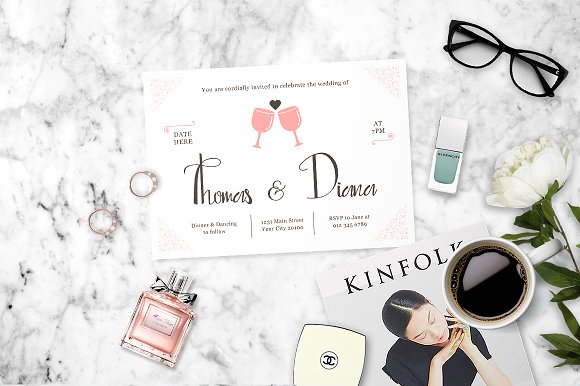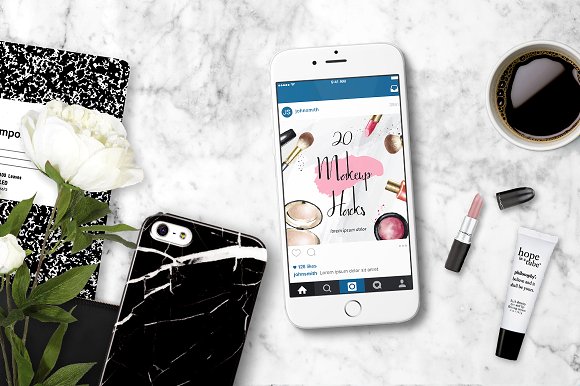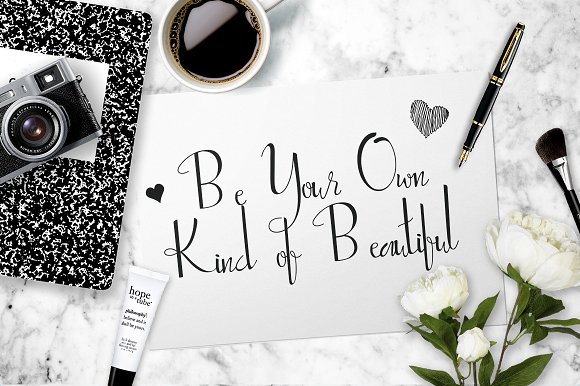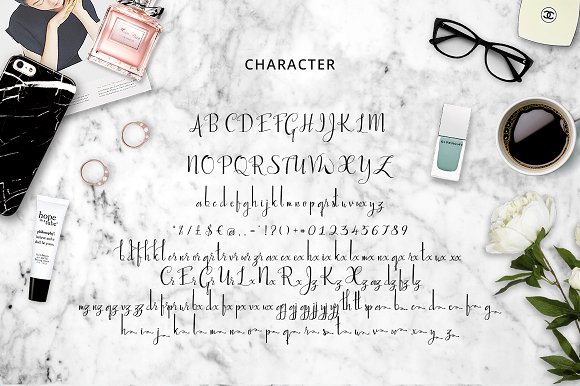
Natarajasana Font
Natarajasana is a modern hand calligraphy script with a play on feminine aesthetics.
-Uppercase, Lowercase, Numerals & Punctuations, Ligatures, Stylistic alternates & Swashes.